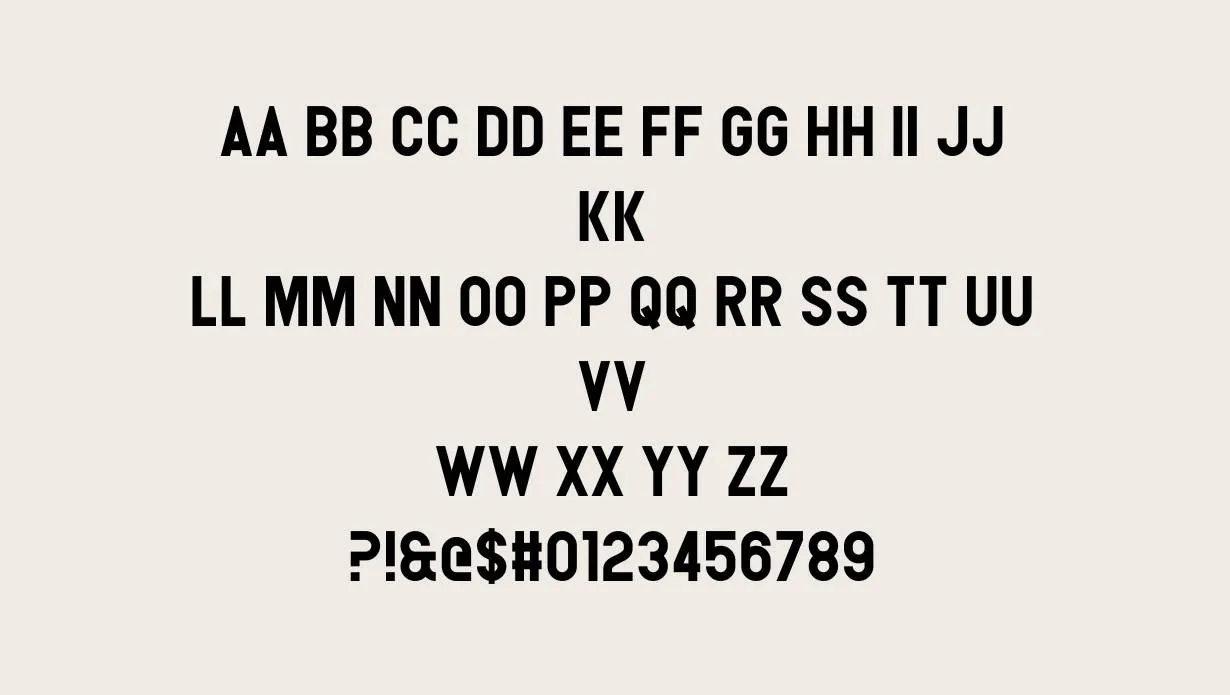
Torque Sense Font has a bold and futuristic design, making it a great choice for projects related to technology, sci-fi, and innovation.
Its sleek and modern letterforms add a sense of progress and advancement to your designs. When it comes to supporting foreign languages, the typeface family stands out and showcases its true potential when paired with decorative fonts like FreeSans Font.
Torque Sense Font Family